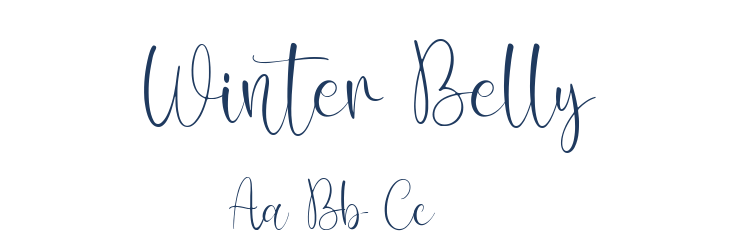
Bellybeans FG Regular Font
A bold, playful font with bubbly, exaggerated curves and a retro vibe.
JellyBelly Font Regular Font
A playful, bold font with rounded, bubble-like characters and a glossy appearance.
RQF Font
A decorative font with sharp, angular lines and dynamic strokes.
Belly Betty Font
An elegant, flowing script font with graceful loops and cursive lines.
Bellynice Font
A bold, flowing script font with elegant curves and connected characters.
Bellyfish Font
A whimsical and decorative font with playful curls and swirls.
BellyaVaky Font
An elegant, flowing script font with thin, delicate strokes and graceful curves.
DJB BellyButton-Innie Bold Font
A bold, playful font with rounded edges and a chunky appearance.
DJB Belly Button-Outtie Font
A playful, bold font with rounded, outlined characters perfect for whimsical designs.
Silver Bellybutton Ring Reg Font
A whimsical, curly font with a playful and hand-drawn style.
Bellya Vaky Font
A delicate and elegant script font with flowing, graceful strokes.
Belly Queens Font
A bold and expressive script font with fluid, dynamic strokes.
Dirly Belly Regular Font
A playful, bold script font with flowing, interconnected characters.
Belly Snack DEMO Regular Font
A playful, bold font with a hand-drawn, whimsical style.
RQF Font
A decorative font with sharp, angular lines and pointed serifs, exuding energy and movement.
Bellychestor Free Regular Font
A refined, handwritten script with elegant, flowing lines.
Winter Belly Font
A stylish, handwritten cursive font with a light and elegant appearance.
Dirly Belly Regular Font
A bold, whimsical script font with elegant swirls and loops.
Bellyluerd Font
A playful and flowing script font with smooth, connected strokes.